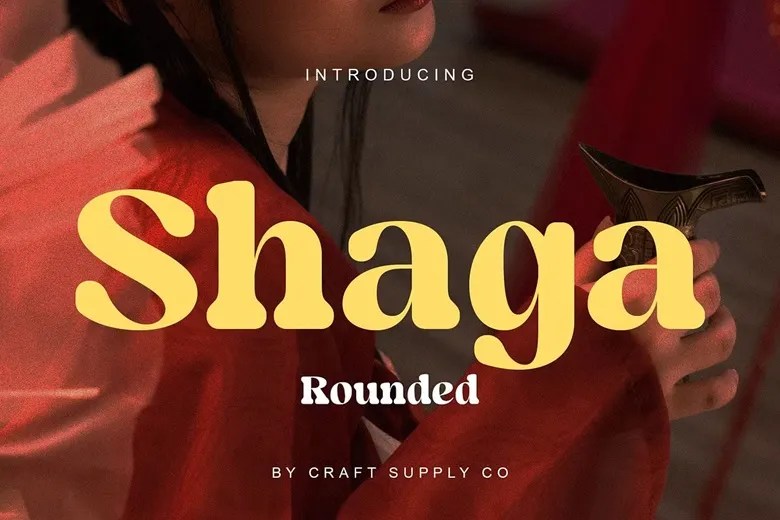
Shaga Rounded Font
Shaga Rounded is a modern retro serif typeface with sharp slab serifs and rounded corners, creating a blend of toughness and approachability. The robust, thick serifs convey stability, while the rounded curves add warmth and friendliness. This harmonious balance between strength and elegance gives Shaga Rounded a vintage aesthetic that feels fresh and relevant.
Perfect for projects that evoke nostalgia, Shaga Rounded is ideal for vintage logos, retro posters, and typography featuring retro elements. Its timeless appeal ensures versatility, seamlessly combining vintage charm with contemporary design to provide visual balance and a welcoming touch.